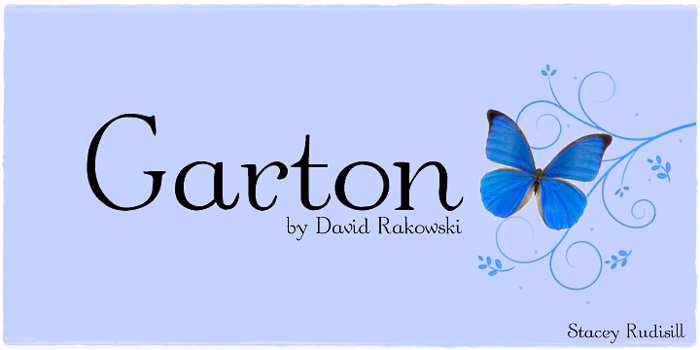
Garton Font
Based on the Morris Benton 1918 American classic, Announcement Roman.
12 years agoClean, not too chunky 😄
11 years agoLooks like font used for credits in "Life Of Pi" film. Wish it had hanging numerals. Otherwise PERFECT!